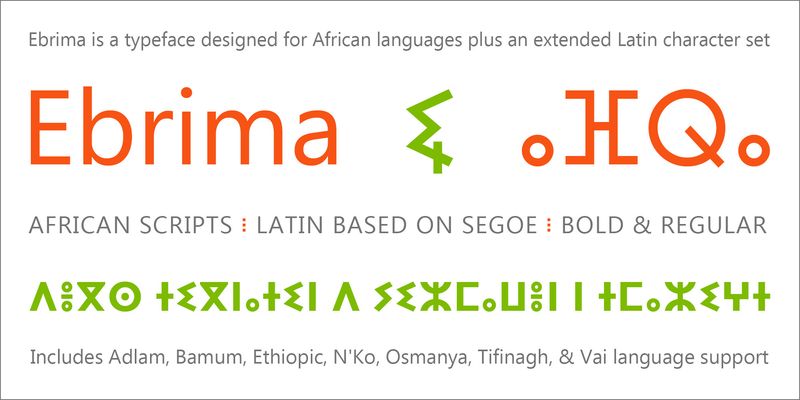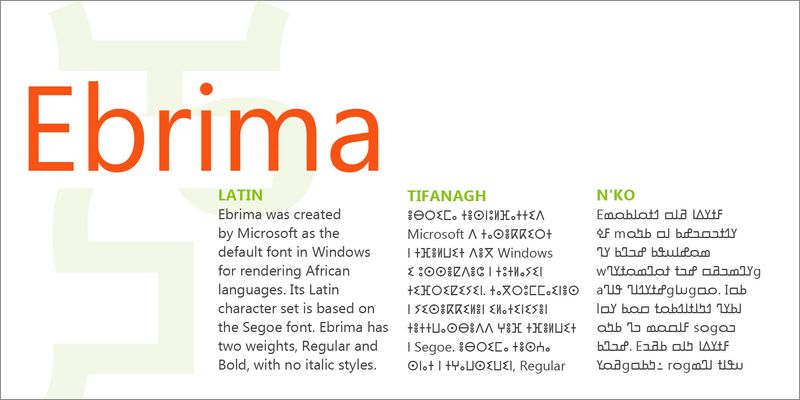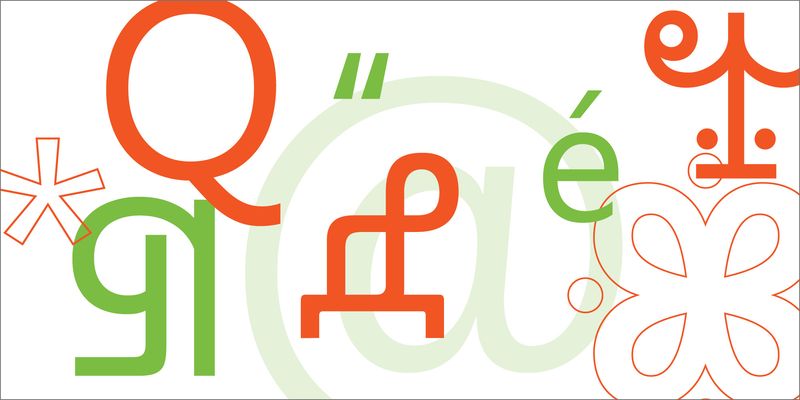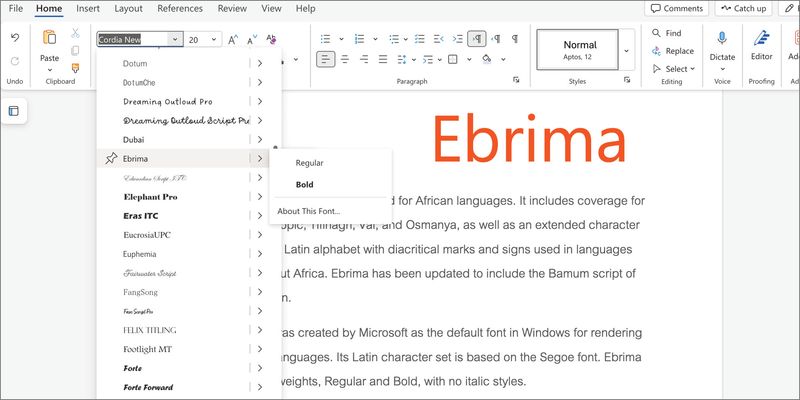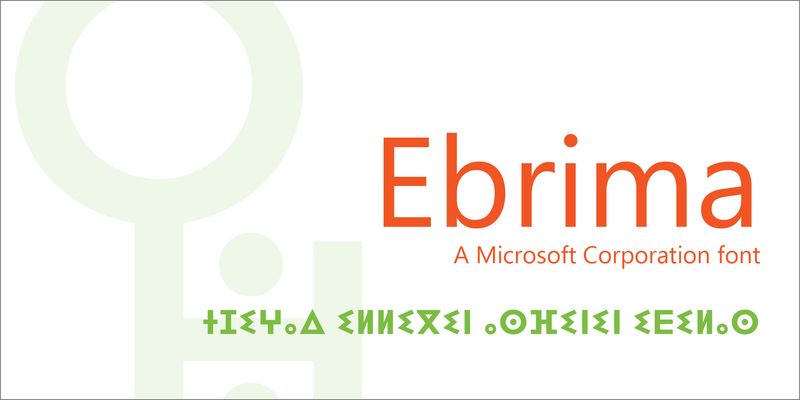
Ebrima is a typeface designed for African languages. It includes coverage for Nko, Ethiopic, Tifinagh, Vai, and Osmanya, as well as an extended character set in the Latin alphabet with diacritical marks and signs used in languages throughout Africa. Ebrima has been updated to include the Bamum script of Cameroon. Ebrima was created by Microsoft as the default font in Windows for rendering African languages. Its Latin character set is based on the Segoe font. Ebrima has two weights, Regular and Bold, with no italic styles.